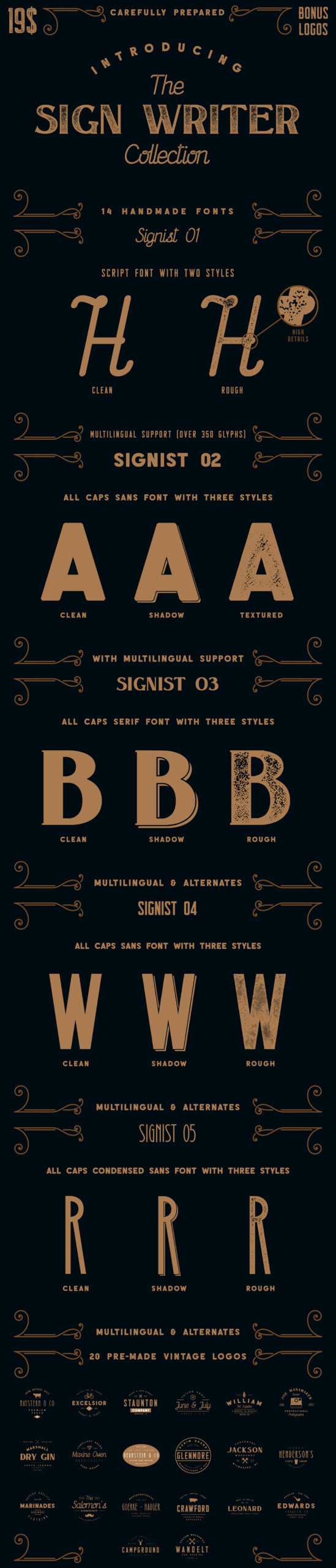
The Sign Writer Collection was designed by Bart Wesolek, inspired by vintage typography used on signboards, storefronts and billboards. Check here the pro version and download for free the clean version beneath the previews. Free for personal and commercial use!